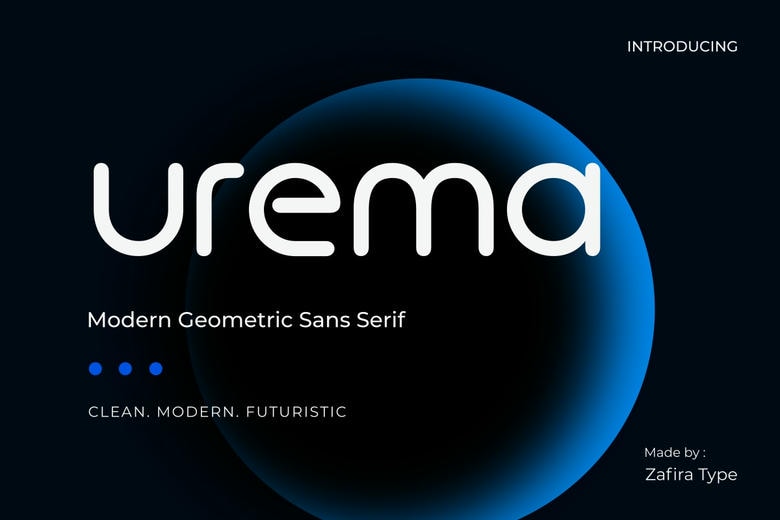
Urema Font
Urema Font is a modern rounded sans serif with soft curves, clean lines, and a balanced look. It brings a friendly and polished feel to branding, editorial layouts, packaging, social media, and websites.
Urema offers nine weights, from Thin to Black, so it works well for bold headlines and easy-to-read body text. Its smooth design and modern style give designers clarity, warmth, and flexibility.
Urema Sans Serif Font